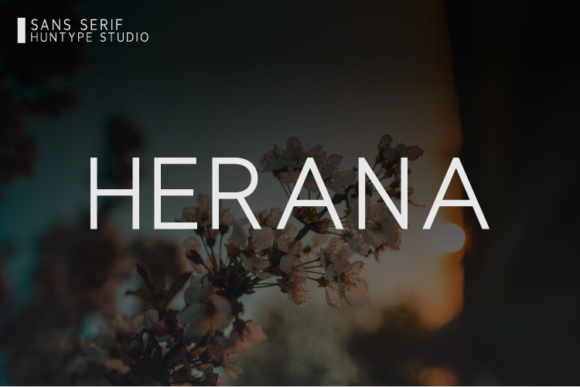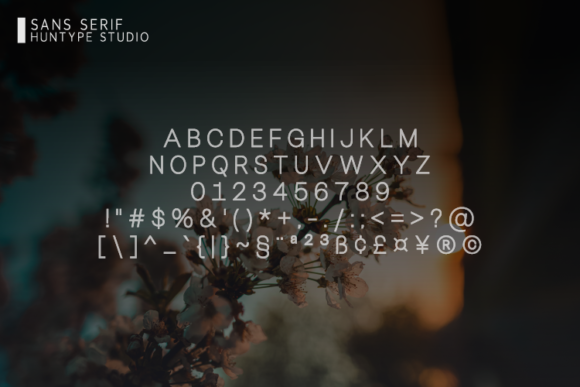
Designing with Simplicity: The Charm of Herana Font
Remember that moment when you stared at a blank canvas, unsure of where to begin? The cursor blinks, and you’re left wondering what to create. It’s in these moments that the right font can be the spark that sets your imagination ablaze. For designers seeking a clean and effortless aesthetic, the Herana Font has emerged as a go-to choice.
This sans serif font is designed to be versatile, effortlessly transitioning between formal and informal designs. With its neat arrangement of letters, Herana Font brings a sense of sophistication to any project. Whether you’re crafting a logo, brochure, or social media graphic, this font is sure to elevate your design. Its simplicity is what makes it valuable for designers – it provides a clean slate for creativity to shine through.
Herana Font Key Features
- Unique Characteristics: Herana Font is a modern sans-serif typeface with a geometric feel and a friendly, approachable personality
- Font Style: Herana Font comes in multiple styles, including Regular, Light, Medium, Bold, and Black
Designer Review: Herana Font
When I first laid eyes on Herana Font, I was immediately drawn to its elegant and sophisticated design. ✨ The subtle curves and rounded edges give it a friendly feel, making it perfect for use in various contexts – from advertising and marketing materials to digital products and branding. ✨ The font’s versatility is truly impressive.
One of the standout features of Herana Font is its excellent legibility. ✨ Whether on-screen or in print, the font remains clear and easy to read, even at smaller sizes. This makes it an excellent choice for use in body text, headings, and even titles.
While Herana Font is an excellent addition to any designer’s toolkit, there are a few limitations to be aware of:
- ⚠️ Limited character set: Herana Font may not include some of the more obscure characters or symbols, which could be a concern for designers working on projects that require a wide range of special characters.
- ⚠️ Not suitable for bold, dramatic use: While Herana Font is perfect for everyday use, it may not be the best choice for projects that require a more dramatic or attention-grabbing font.
Overall, Herana Font is a solid choice for designers looking for a versatile and elegant font. While it may have some limitations, its excellent legibility and friendly design make it a great addition to any project.
Practical Application Guide for Herana Font
Tips for Getting the Most Out of Herana Font
Here are some tips to help you get the most out of Herana font:
- Use Herana font for headings and titles to add a touch of elegance.
- Pair Herana font with other fonts to create a unique and stylish combination.
- Experiment with different font sizes and styles to find the perfect balance.
Herana font is perfect for:
- Designing elegant and sophisticated business cards.
- Creating unique and stylish invitations.
- Adding a touch of elegance to your resume or CV.
Alternatives to Herana Font
Ostrich Sans is a modern sans-serif font with a friendly and approachable feel. It is suitable for use in digital products, such as websites and mobile apps, where a clean and readable font is required. Ostrich Sans is more informal and playful compared to Herana Font, making it a good choice for casual designs and branding.
Montserrat is a geometric sans-serif font that is highly legible and versatile. It is suitable for use in a variety of applications, including print and digital media. Montserrat is more condensed and sleek compared to Herana Font, making it a good choice for designs that require a modern and sophisticated feel.
Open Sans is a clean and modern sans-serif font that is highly legible and versatile. It is suitable for use in a variety of applications, including print and digital media. Open Sans is more neutral and straightforward compared to Herana Font, making it a good choice for designs that require a clean and simple feel.
Lato is a modern sans-serif font with a friendly and approachable feel. It is suitable for use in digital products, such as websites and mobile apps, where a clean and readable font is required. Lato is more elegant and refined compared to Herana Font, making it a good choice for designs that require a sophisticated and high-end feel.
For optimal readability, we recommend using a font size between 12pt and 14pt for body text, and a line height of at least 1.5 times the font size. This will ensure that the text is clear and legible, even at smaller sizes.